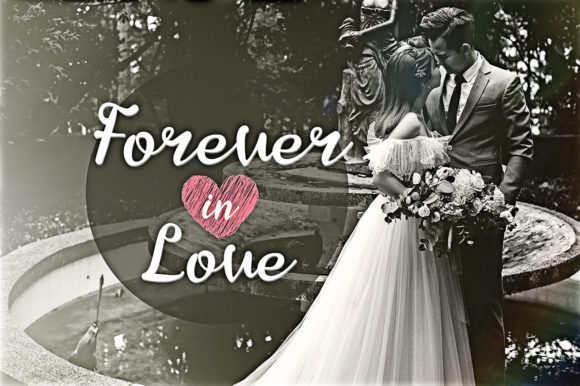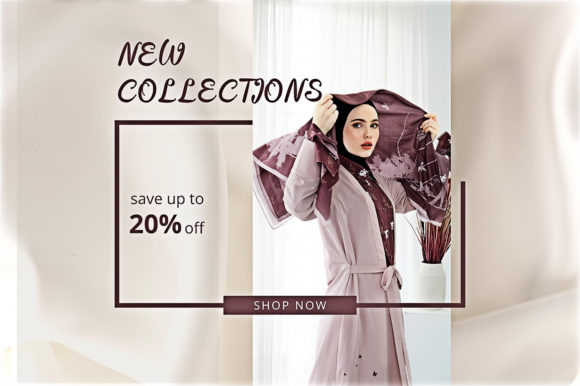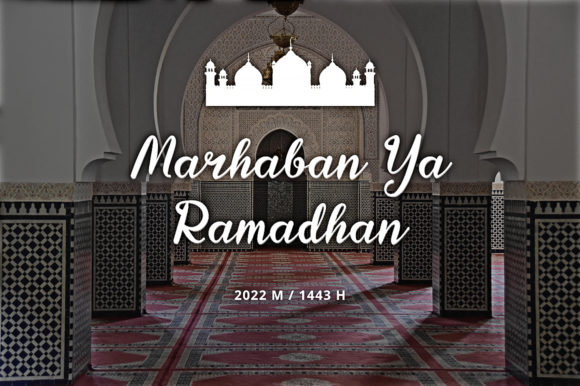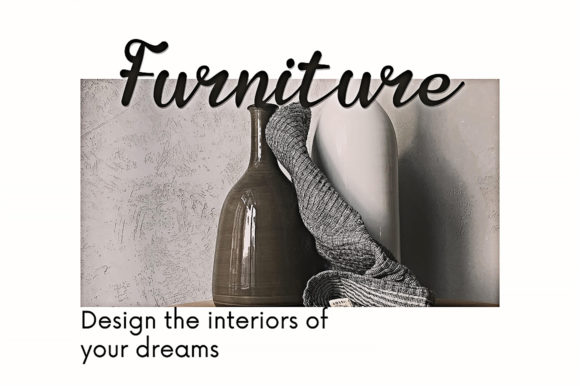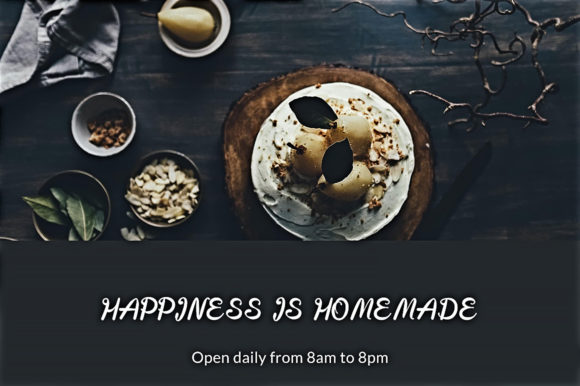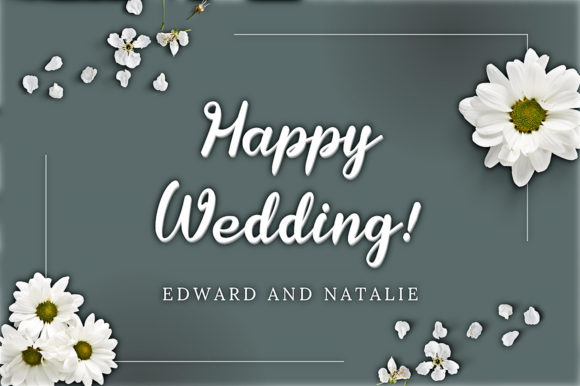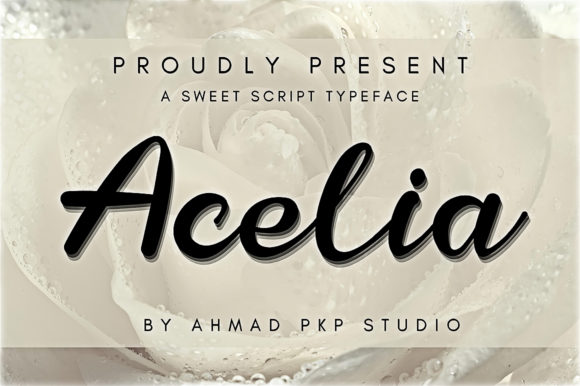
Acelia Font: Elevate Your Designs with Elegance and Sophistication
In the world of typography, fonts play a crucial role in conveying the tone and personality of a design. For designers and crafters seeking a unique and elegant script font, Acelia is an excellent choice. This simple, yet sophisticated font is perfect for adding a touch of high-quality vibes to various design projects, from wedding invitations to social media posts.
What is Acelia Font?
Acelia is a beautiful script font that exudes elegance and refinement. Its simple, yet distinctive design makes it an excellent choice for designers looking to add a personal touch to their work. With its flowing lines and cursive style, Acelia is perfect for creating stunning designs that require a high level of sophistication.
Key Features of Acelia Font
• Simple and Unique Design: Acelia’s design is both simple and unique, making it stand out from other script fonts.
• Easy to Use: This font is incredibly easy to use, making it perfect for designers of all skill levels.
• Elegant and Sophisticated: Acelia’s elegant design makes it perfect for high-end designs that require a touch of sophistication.
• High-Quality Vibes: With Acelia, you can add a touch of high-quality vibes to your designs, making them perfect for wedding invitations, business cards, and more.
Use Cases for Acelia Font
Acelia is a versatile font that can be used in a variety of design projects, including:
• Wedding Invitations: Add a touch of elegance to your wedding invitations with Acelia’s beautiful script design.
• Business Cards: Create stunning business cards that make a lasting impression with Acelia’s sophisticated design.
• Greeting Cards: Add a personal touch to your greeting cards with Acelia’s elegant script font.
• Social Media Posts: Elevate your social media posts with Acelia’s high-quality design.
• Wall Art: Create beautiful wall art with Acelia’s elegant script font.
Benefits of Using Acelia Font
By using Acelia font in your designs, you can enjoy several benefits, including:
• Enhanced Visual Appeal: Acelia’s elegant design can enhance the visual appeal of your designs, making them more engaging and attention-grabbing.
• Increased Sophistication: With Acelia, you can add a touch of sophistication to your designs, making them perfect for high-end projects.
• Improved Readability: Acelia’s clear and elegant design makes it easy to read, even in small sizes.
Tips for Using Acelia Font
To get the most out of Acelia font, here are some tips to keep in mind:
• Use it Sparingly: Acelia is a bold font, so use it sparingly to avoid overwhelming your design.
• Pair it with Other Fonts: Experiment with pairing Acelia with other fonts to create a unique and visually appealing design.
• Adjust the Size and Color: Adjust the size and color of Acelia to suit your design needs.
Acelia font is a beautiful and elegant script font that can elevate your designs to the next level. With its simple, yet sophisticated design, Acelia is perfect for adding a touch of high-quality vibes to various design projects. Whether you’re a designer or crafter, Acelia is an excellent choice for creating stunning designs that require a high level of sophistication.